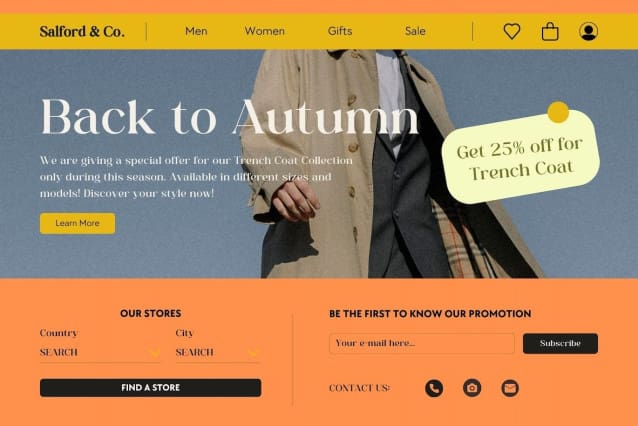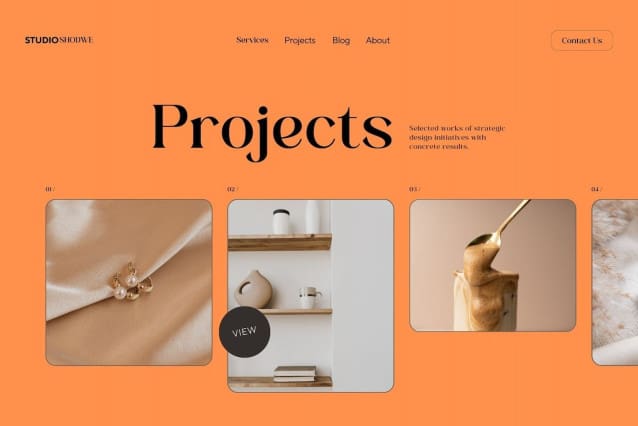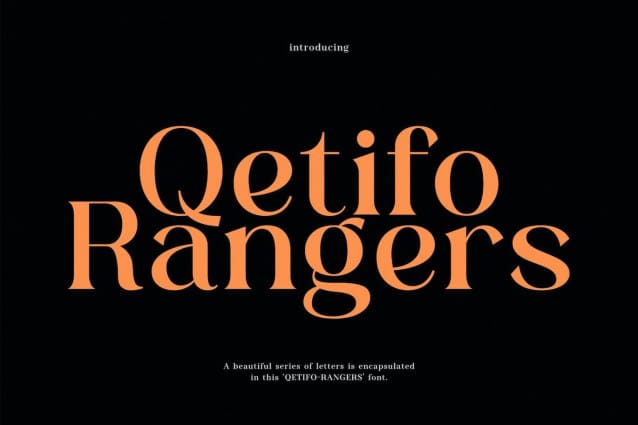
Qetifo Rangers Font
Qetifo Rangers Font, this typeface embodies a symmetrical and balanced rhythm through a unique blend of different sources of inspiration. Proportions are precisely adjusted with subtle contours and subtle contrasts. These shapes give the font an attractive look without compromising elegance and minimalism, ensuring that any glyph is suitable for any graphic design purpose such as brochures, videos, advertising branding, logos, magazines, layouts, posters, publication templates, games and others